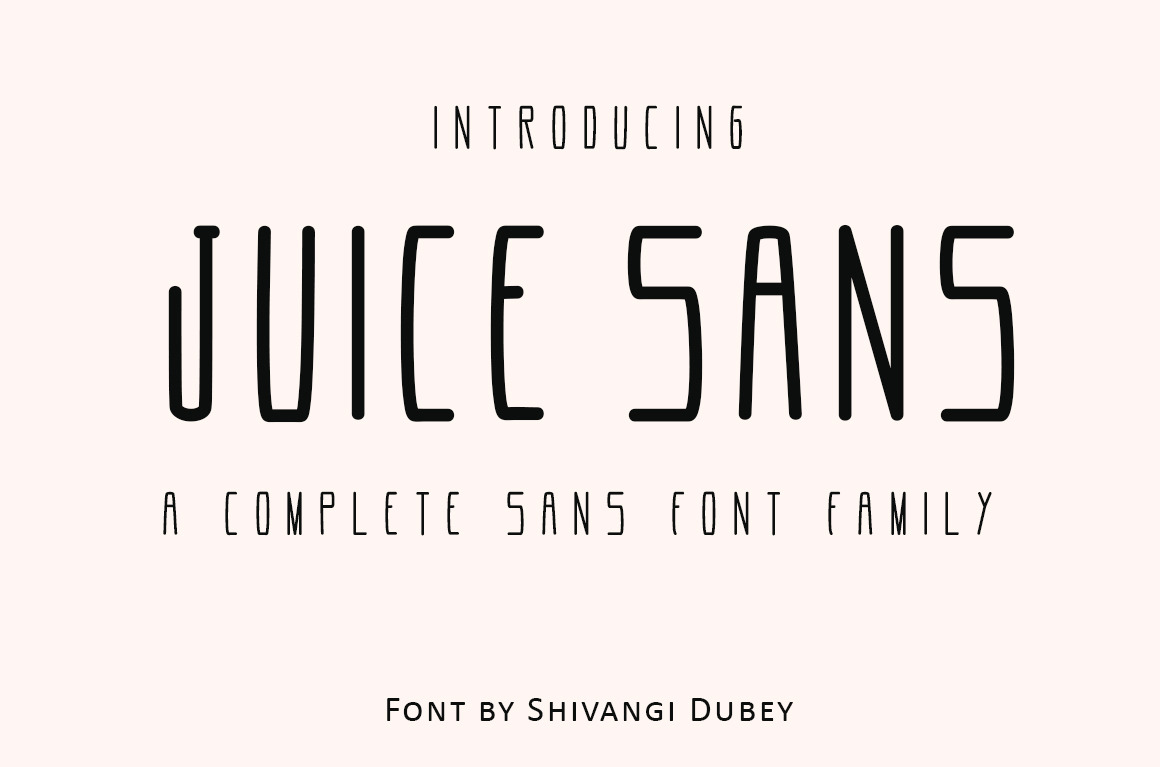
Juice Sans - Sans Serif Font Family
Introducing Juice Sans Font Family - perfect for Branding, Logo and Titles. Incorporating tall features with thin to thick bold font faces. Create your design for any banners or letterheads in minutes and slay with your unique style.
- 5 Styles of Font Faces